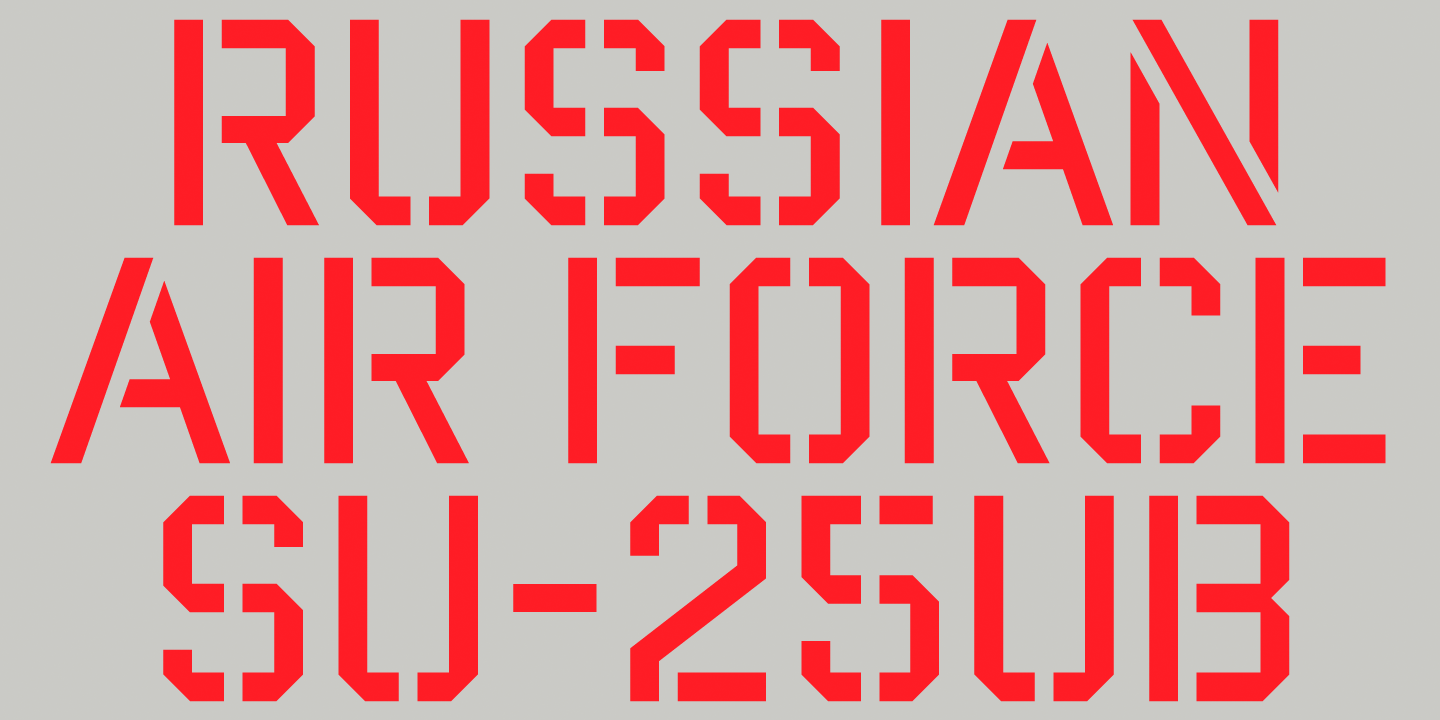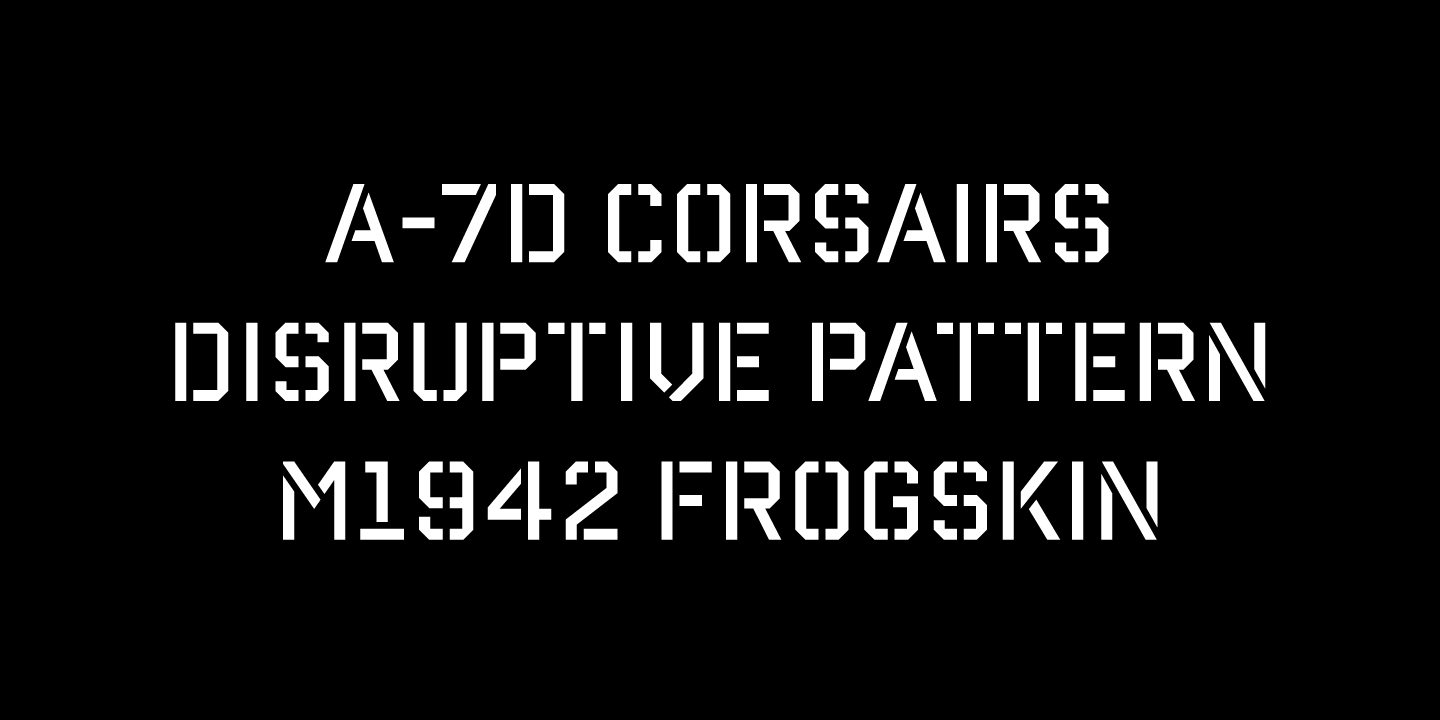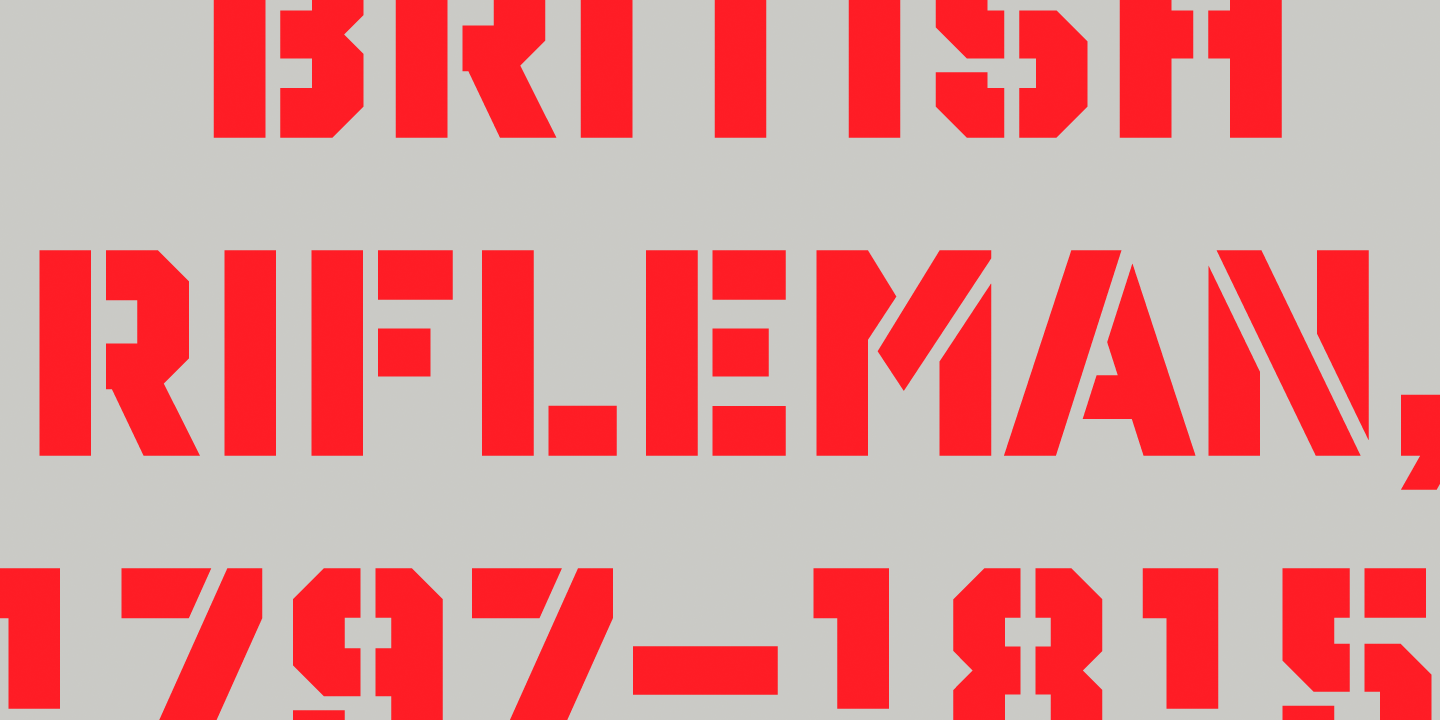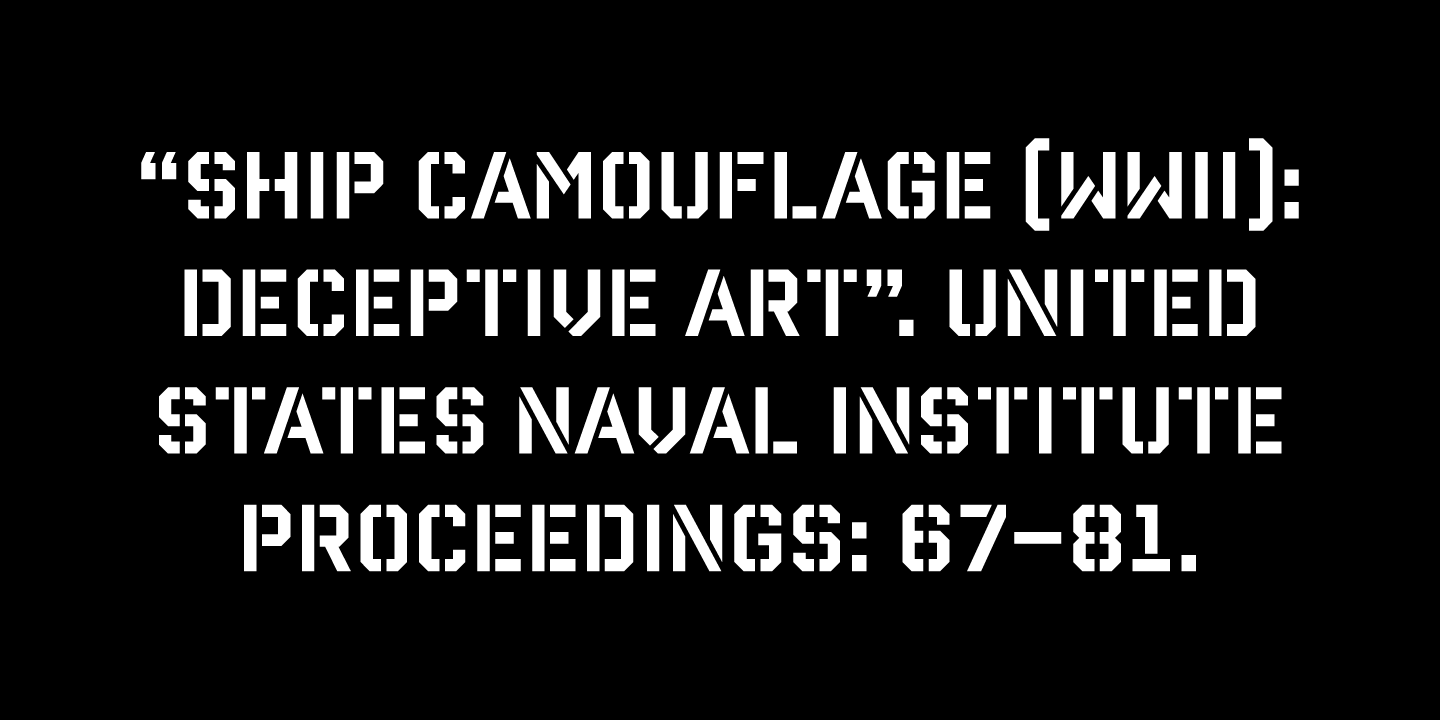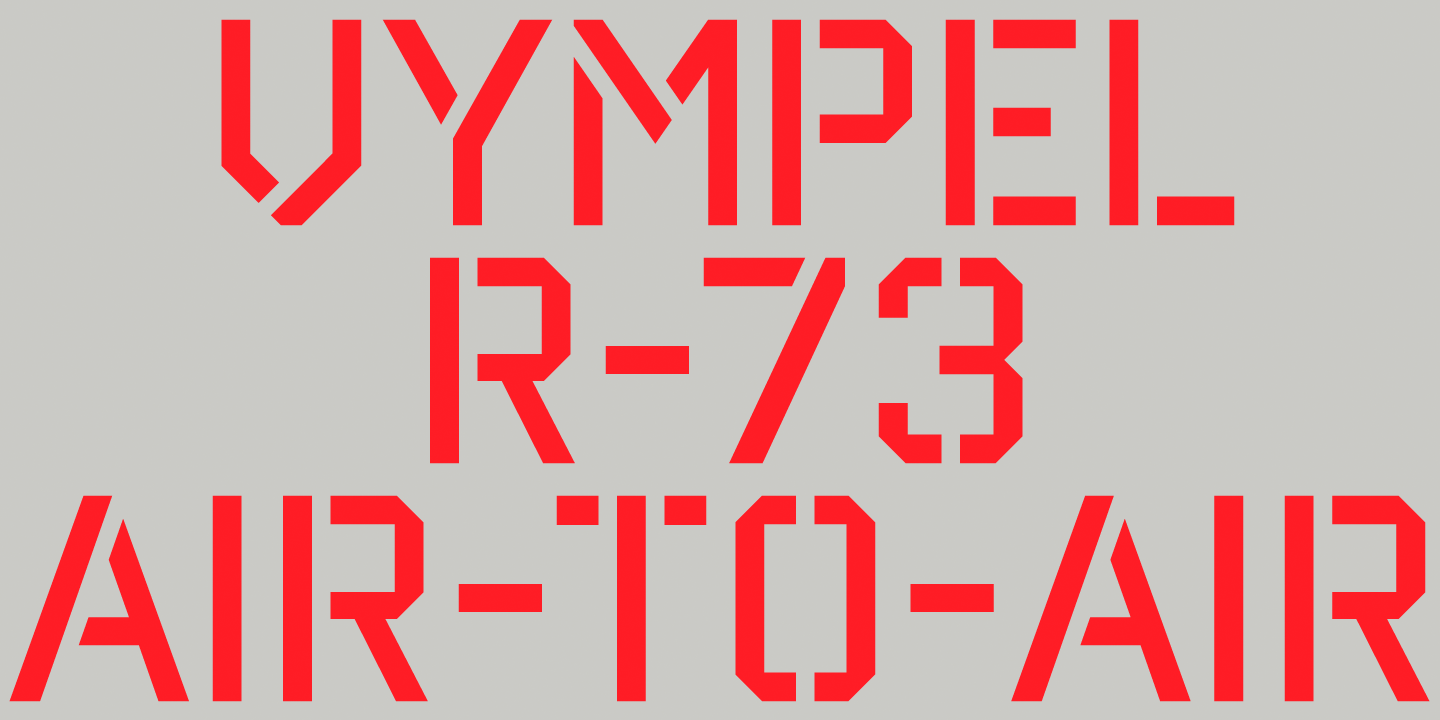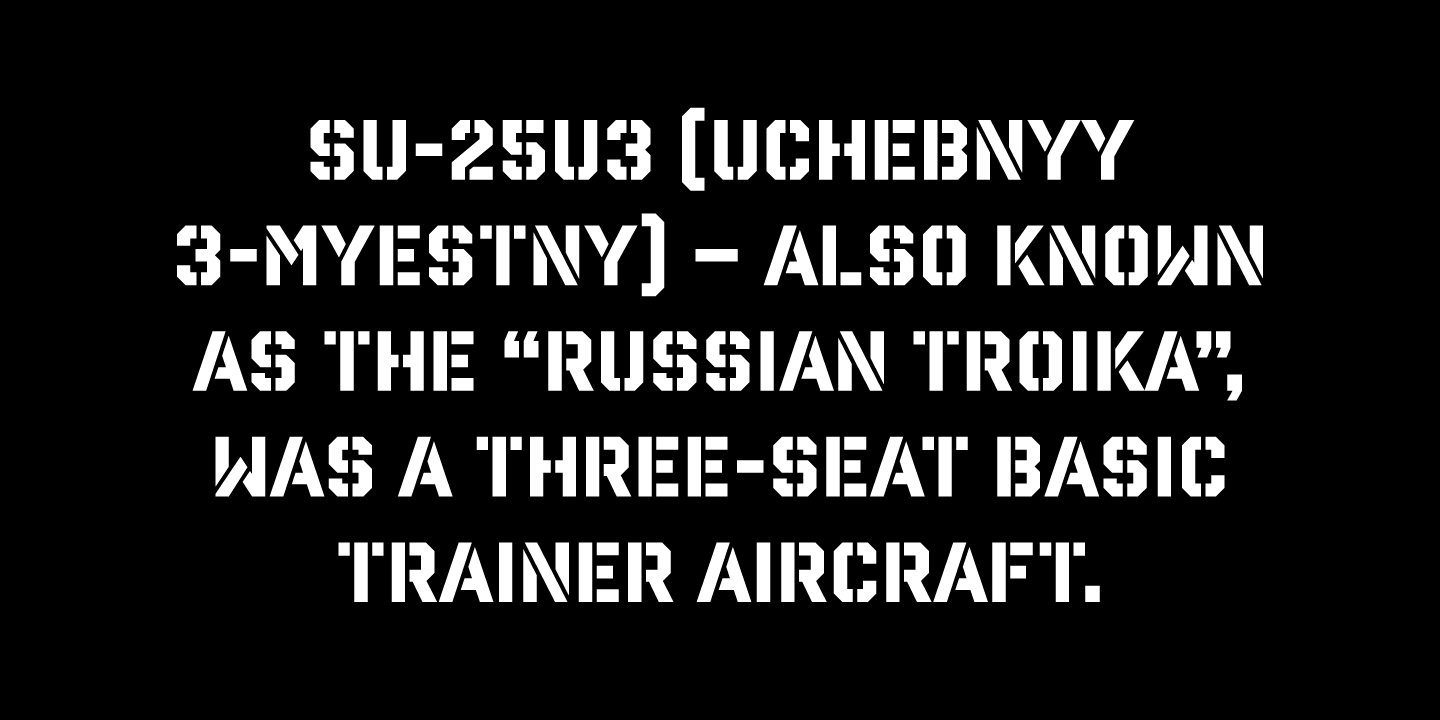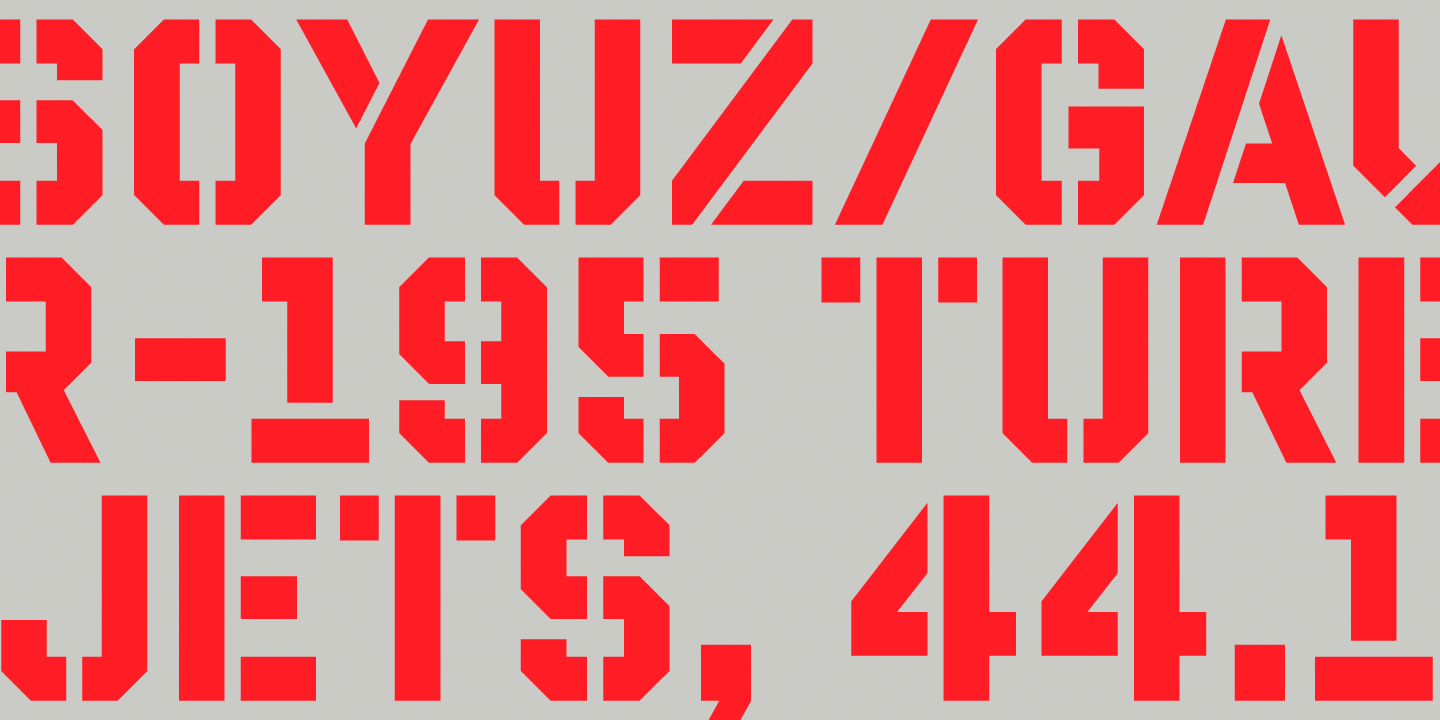
Reload Stencil
Font Family by AE Type
Reload Stencil is a rectangular industrial geometric stencil typeface available in four flexible and distinct weights.
Features include:
• Slashed zero
• Romanian s accent language feature
• Extended language support